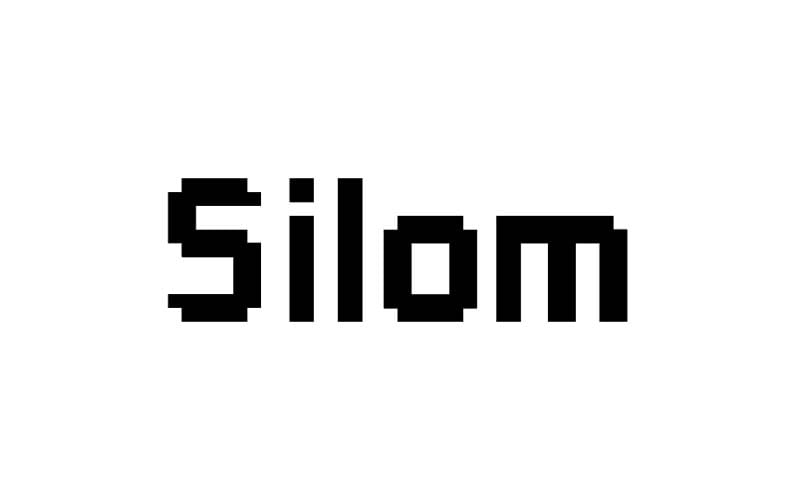
Silom Font is a sans serif and bitmap typeface that looks great when used in gaming tasks due to its unique and modern appearance. This amazing font was designed and published by Tom Tor.
The decorative font has come in only one weight. It contains 112 unique characters. The Silom Font is a popular font foundry as it releases various bitmap fonts in the market.
You can use this remarkable font for many purposes such as game titles, t-shirt printing, stickers, game development, kids badges, animated movie titles, special quotes, CD covers, and much more.
Silom Font
| Font Name: | Silom Font |
| Style: | Bitmap, Decorative, Typeface |
| Font Designer: | Tom Tor |
Thus, after the release of this beautiful font, its foundry achieved amazing success. But later, when a designer who uses it somewhere also appreciates the effort and its own look makes it different from other fonts.
And you probably won’t be able to survive without it. Thus, just make a solid plan and use it everywhere you need it. It is famous for its heavy scenery and stylish structure.